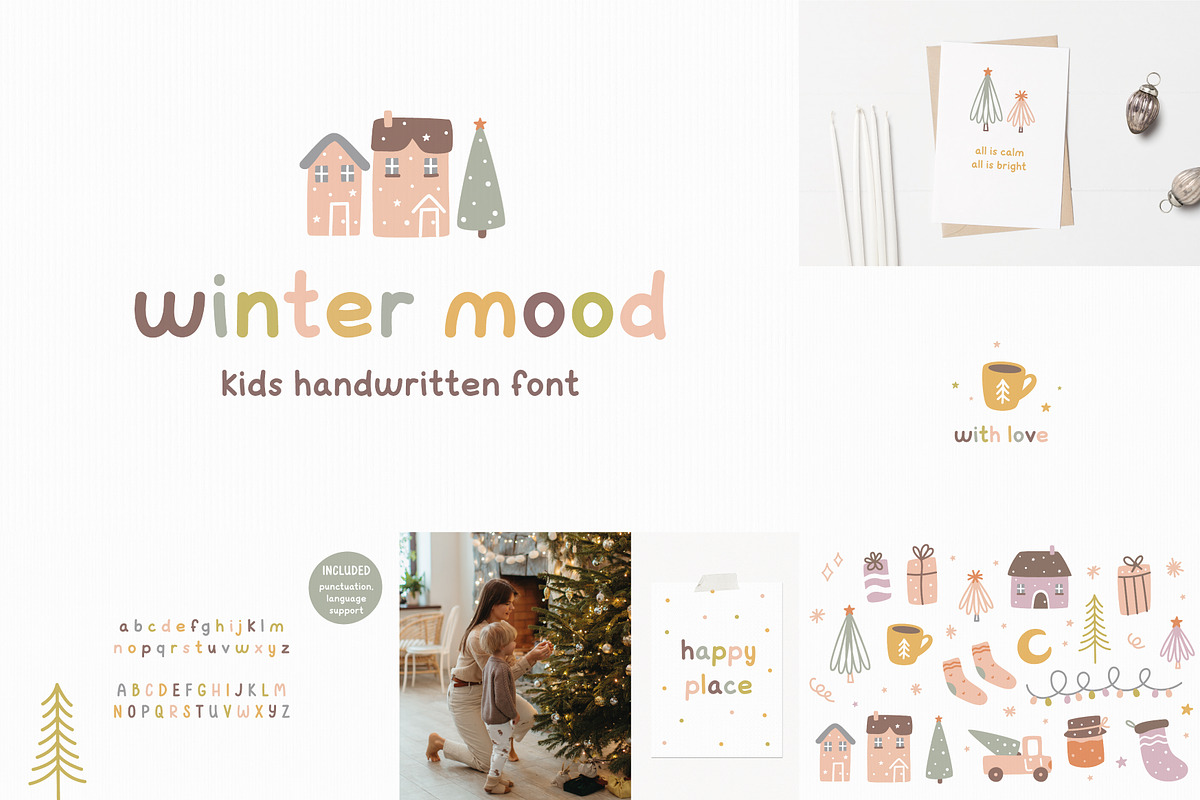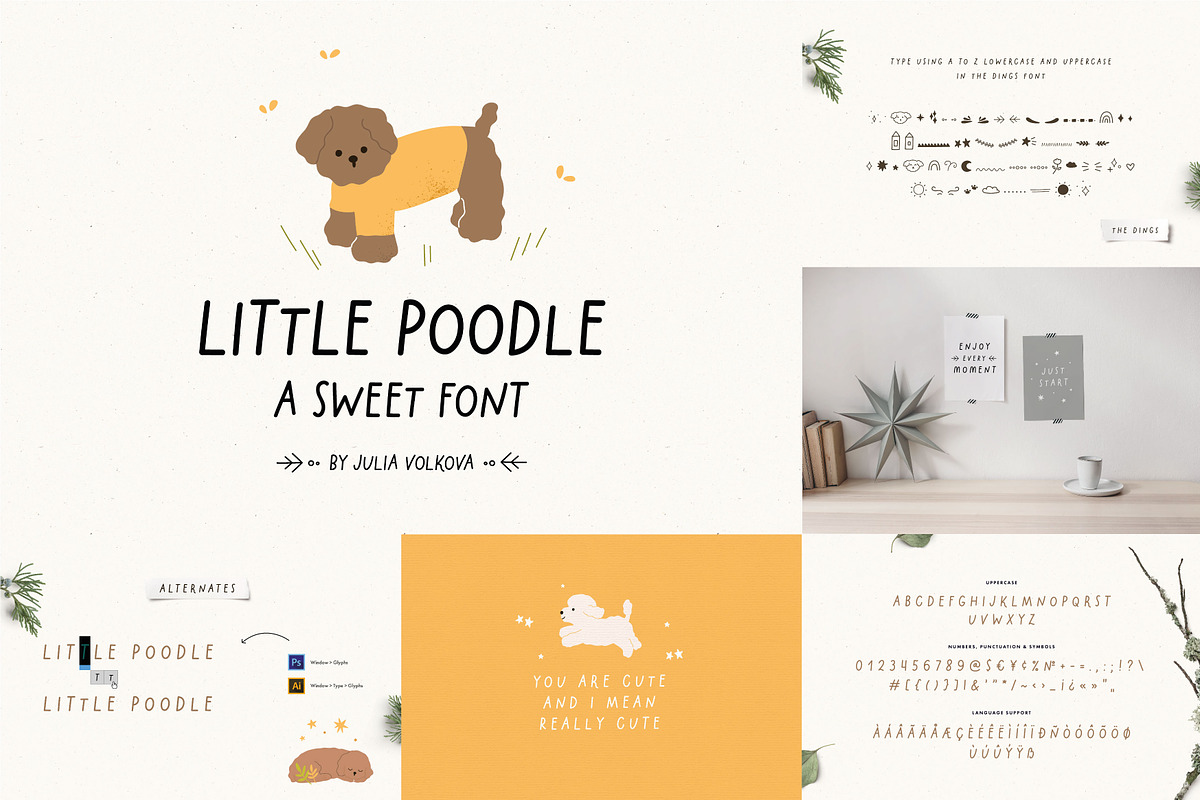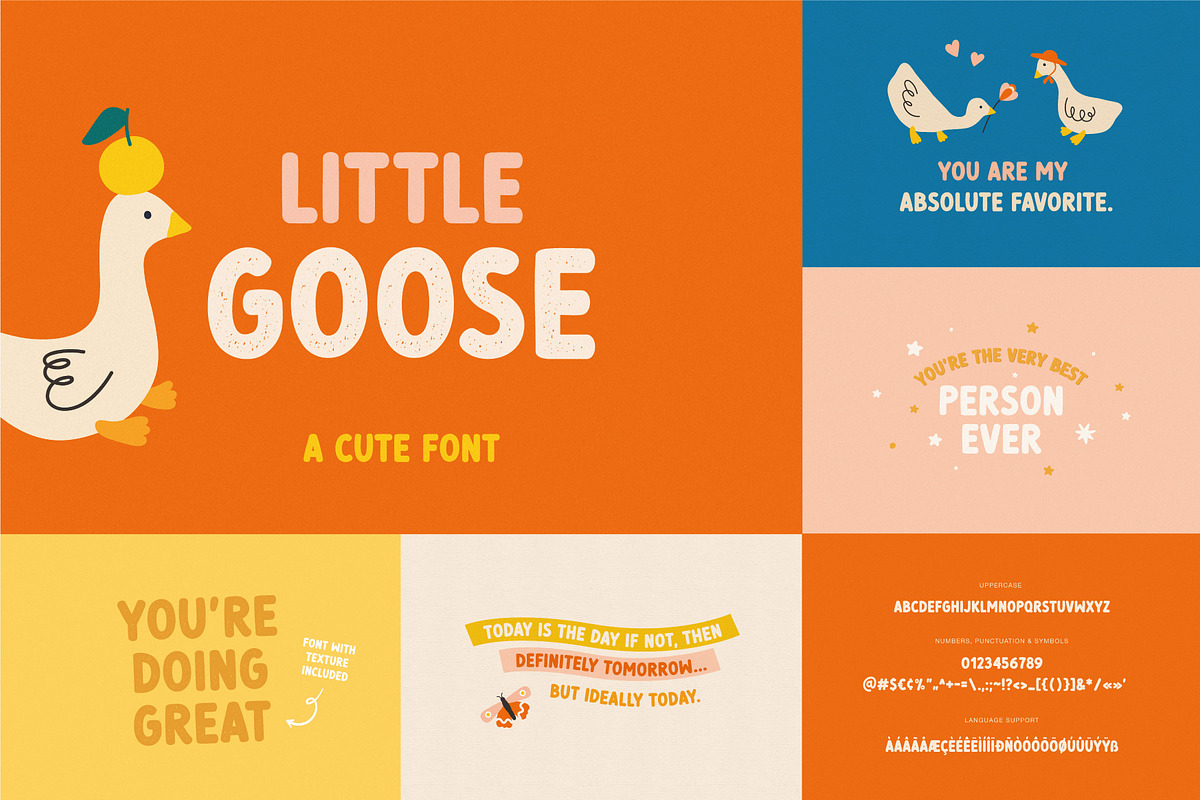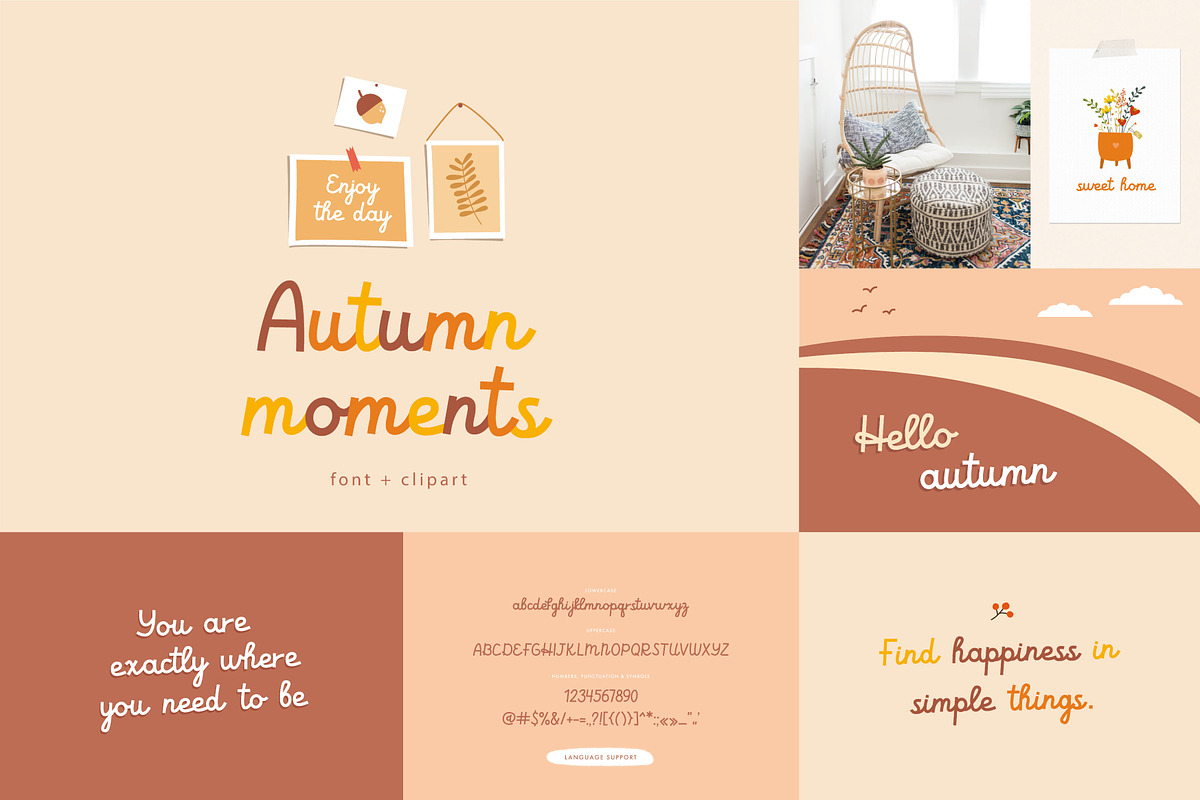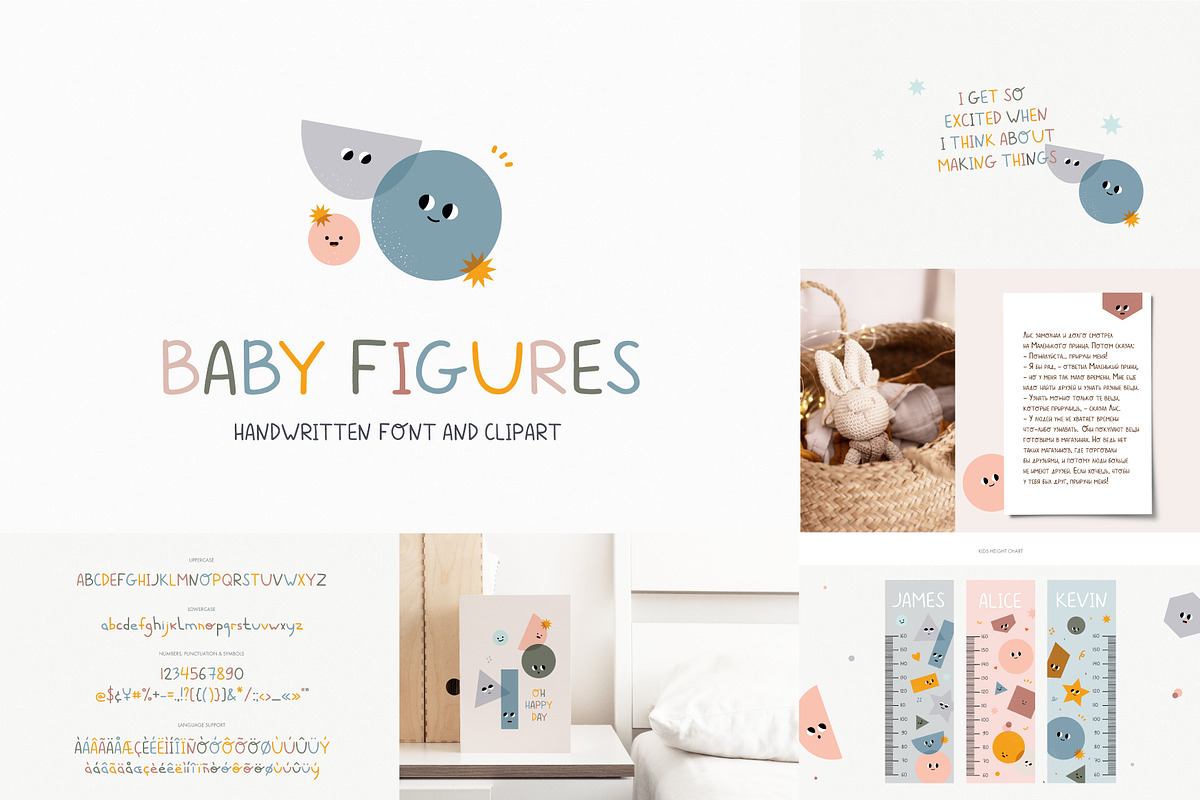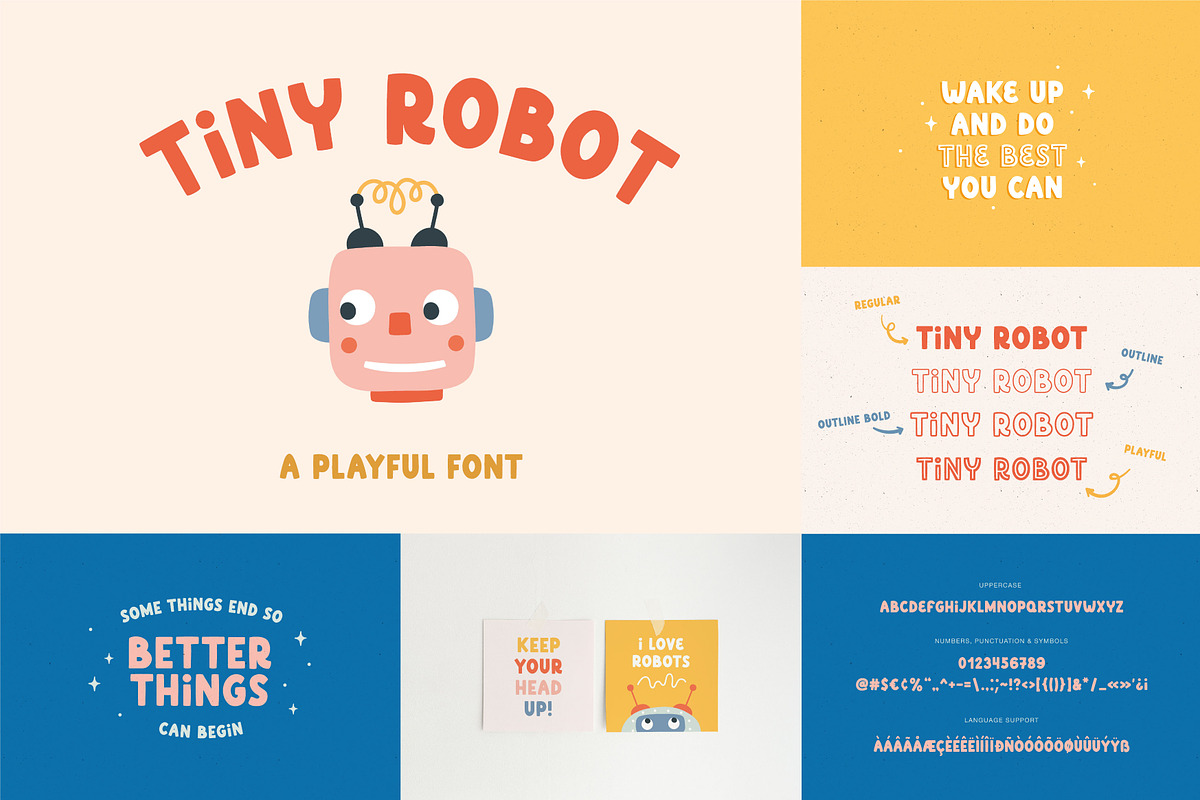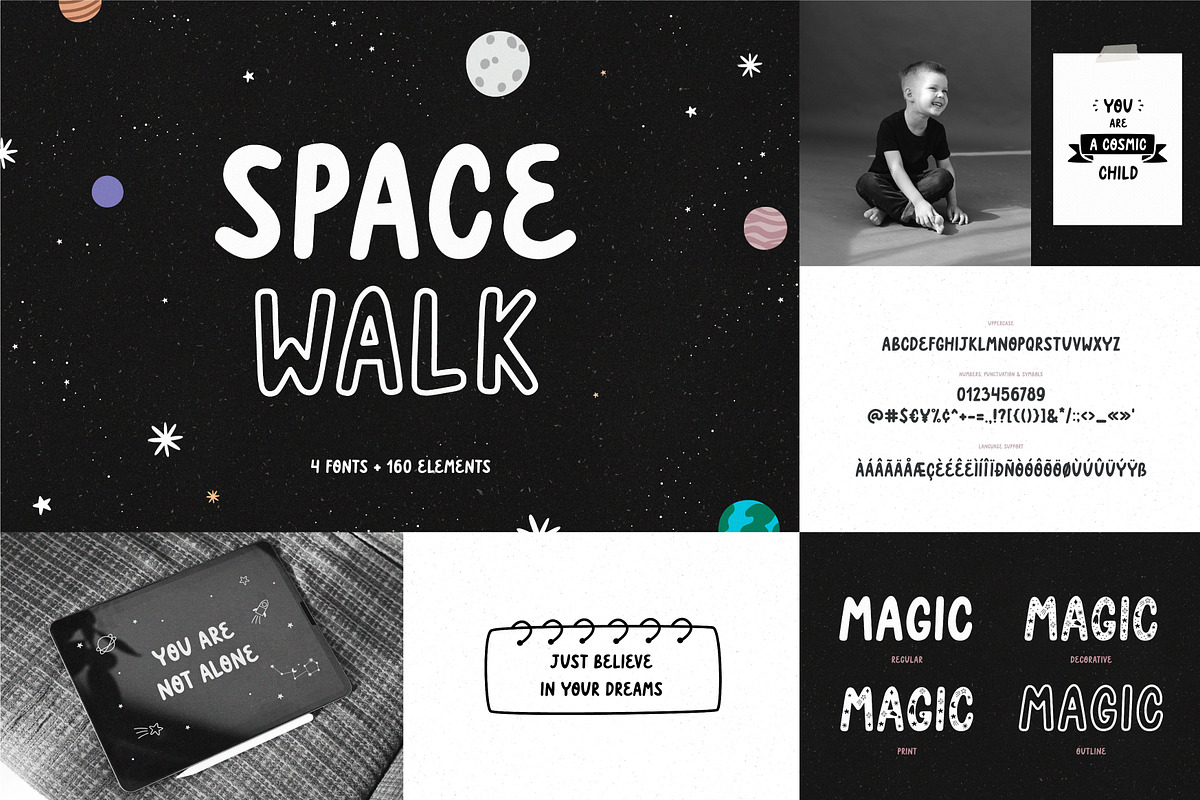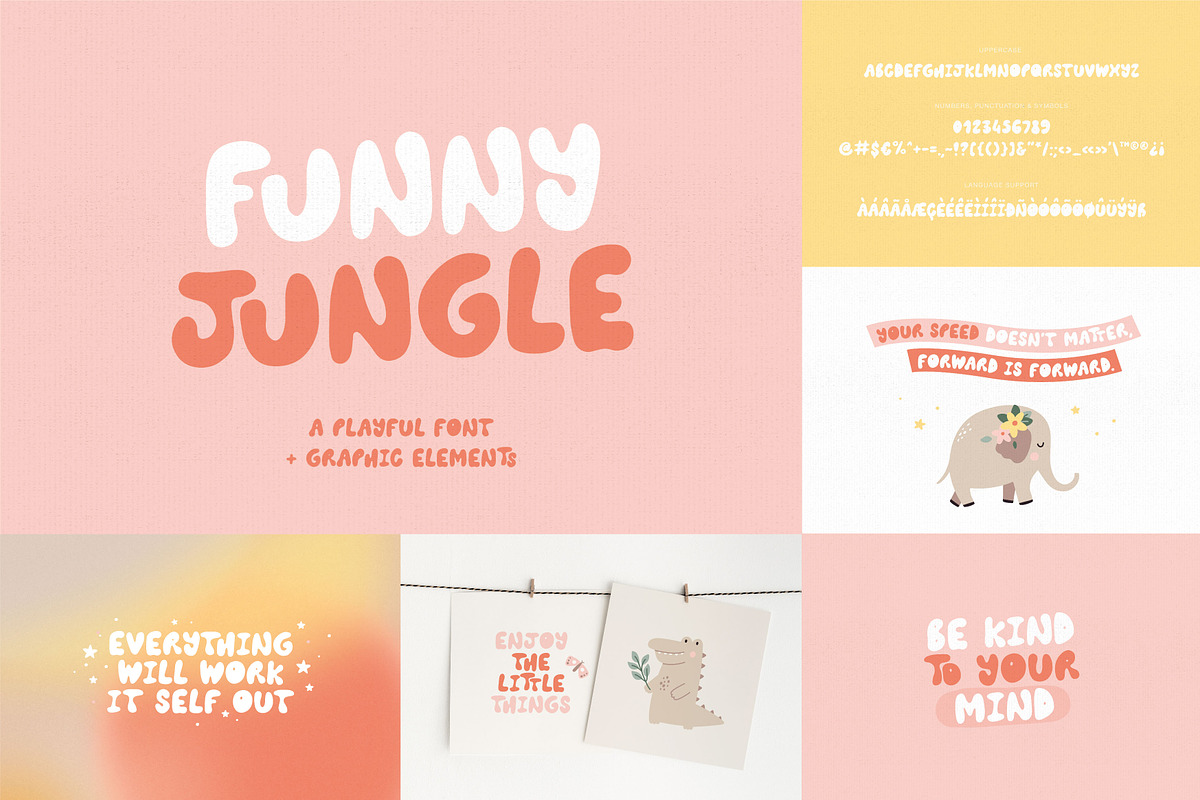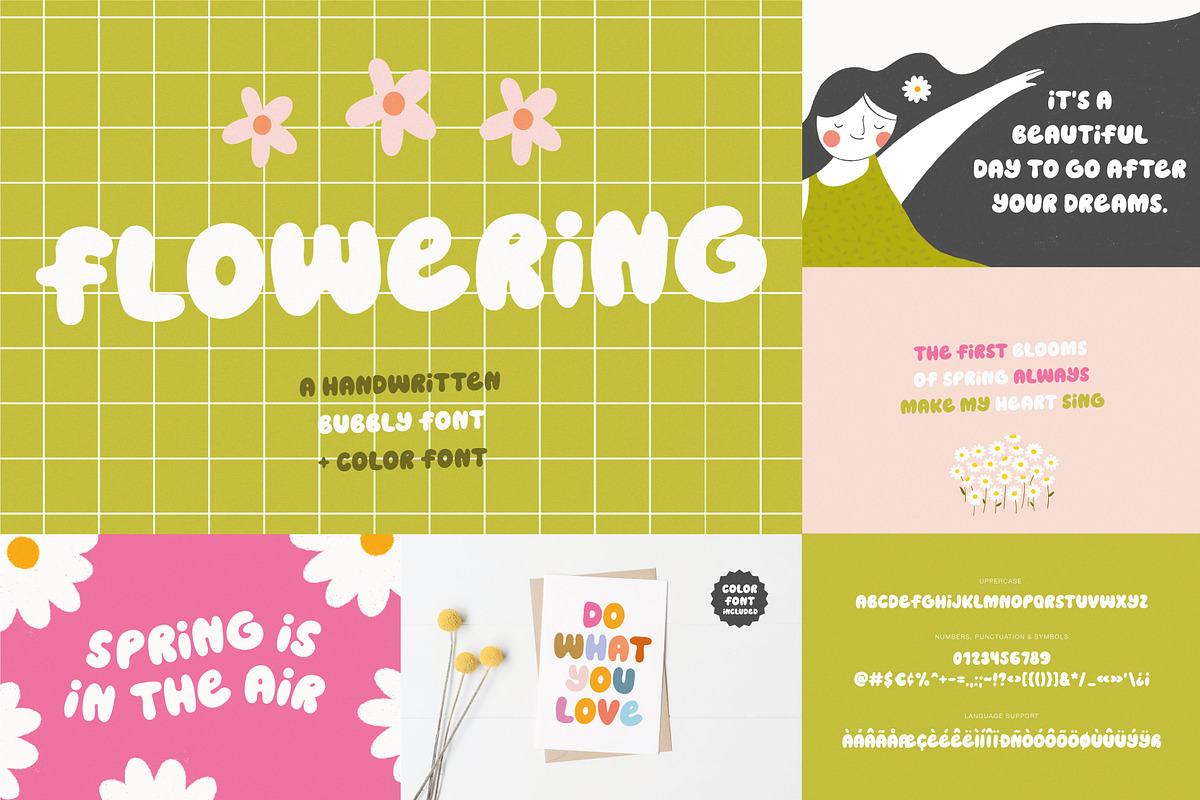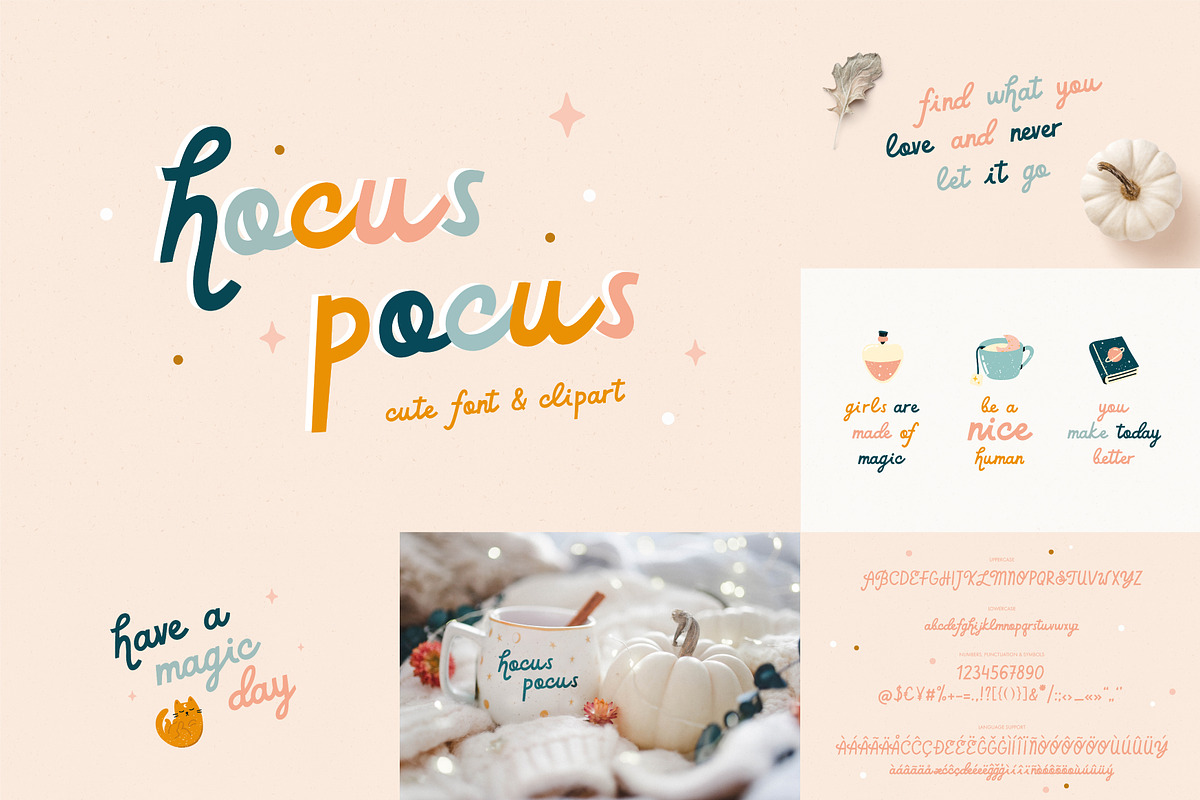
Whole shop BUNDLE | Fonts & Graphics
I'm so happy to announce my Whole shop BUNDLE!
61 handwritten fonts and 1531 graphic design elements for your awesome projects.
- Little goose | Cute font https://crmrkt.com/gj7VGo
- Fanciful persons | Playful font https://crmrkt.com/qO7BPq
- Spooky Vibes | Cute font https://crmrkt.com/RgNvKx
- Very Merry | Playful font https://crmrkt.com/Rg0j48
- Flowering | Bubbly font https://crmrkt.com/Qg2xRo
- Surfwave | Handwritten font https://crmrkt.com/XgWya0
- Bubblegum | Font duo https://crmrkt.com/1P1bEW
- Funny Jungle | Playful font https://crmrkt.com/qOgKE9
- Super Duper | Handwritten font https://crmrkt.com/zRBkm5
- Tiny robot | Playful font https://crmrkt.com/Vg6MJ1
- Little poodle | Sweet font https://crmrkt.com/N10Qyd
- Honey Bunny | Handwritten font https://crmrkt.com/5e92PR
- Orange Juice | Playful font https://crmrkt.com/zRqvGM
- Good Avocado | Handwritten font https://crmrkt.com/dGbxoK
- Flower show | Font duo https://crmrkt.com/MVQDy3
- Little friends | Hand drawn font https://crmrkt.com/Gw4Vvp
- Holly Jolly | Font duo https://crmrkt.com/0dxB7b
- Space walk | Playful font https://crmrkt.com/QxdqN4
- Cats party | Playfull font https://crmrkt.com/D7XWqE
- Secret forest | Cute Font https://crmrkt.com/MVkWKM
- Hocus pocus | Cute font https://crmrkt.com/W0N0VV
- Hello Dino | Friendly font https://crmrkt.com/gPAmd0
- Ocean Secret | Playful font https://crmrkt.com/a7AjBk
- Autumn moments | Script font https://crmrkt.com/l85pxR
- Cute tiger | Kids font https://crmrkt.com/zE3NPq
- Winter mood | Kids font https://crmrkt.com/bGJRzz
- Funny cat | Handwritten font https://crmrkt.com/RK8yy8
- Summer vibes | Playful font https://crmrkt.com/gP5J72
- Garden friends | Font duo https://crmrkt.com/6dJVEO
- Baby figures | Handwritten font https://crmrkt.com/8GQDbo